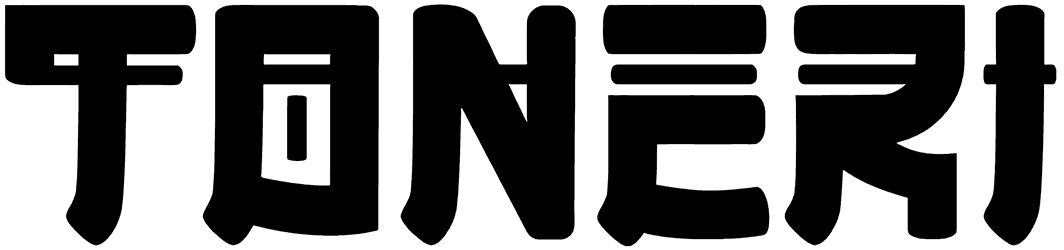
Toneri Font
With traditional and detailed lettering, your project will be identified as a cool and salient layout of yours, and this Japanese font can perfectly do it. Toneri has an adorned letterform that has preserved its readable aspect. While there is no offer for numbers and most punctuation marks, this samurai font will be fit for many layouts, like flyers, branding, or the same.